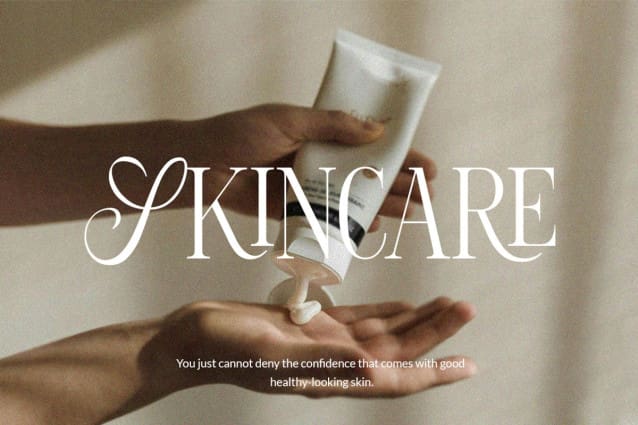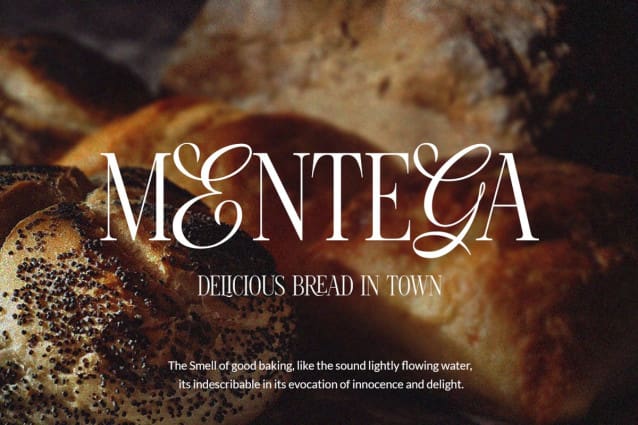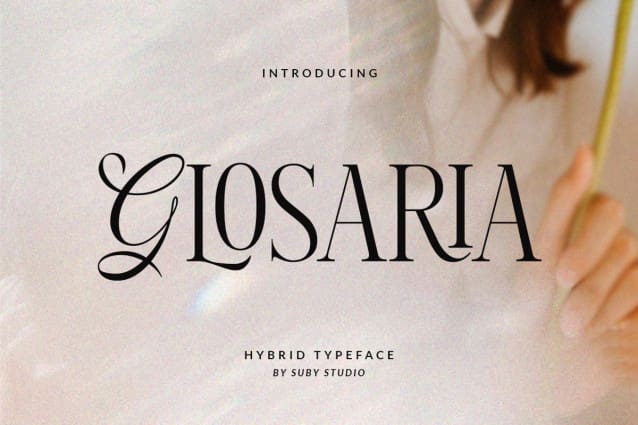
Glosaria Font
Glosaria Font is an elegant hybrid font combining classic script and modern serif. It’s perfect for magazines, logos, wedding cards, packaging, quotes, fashion and more.